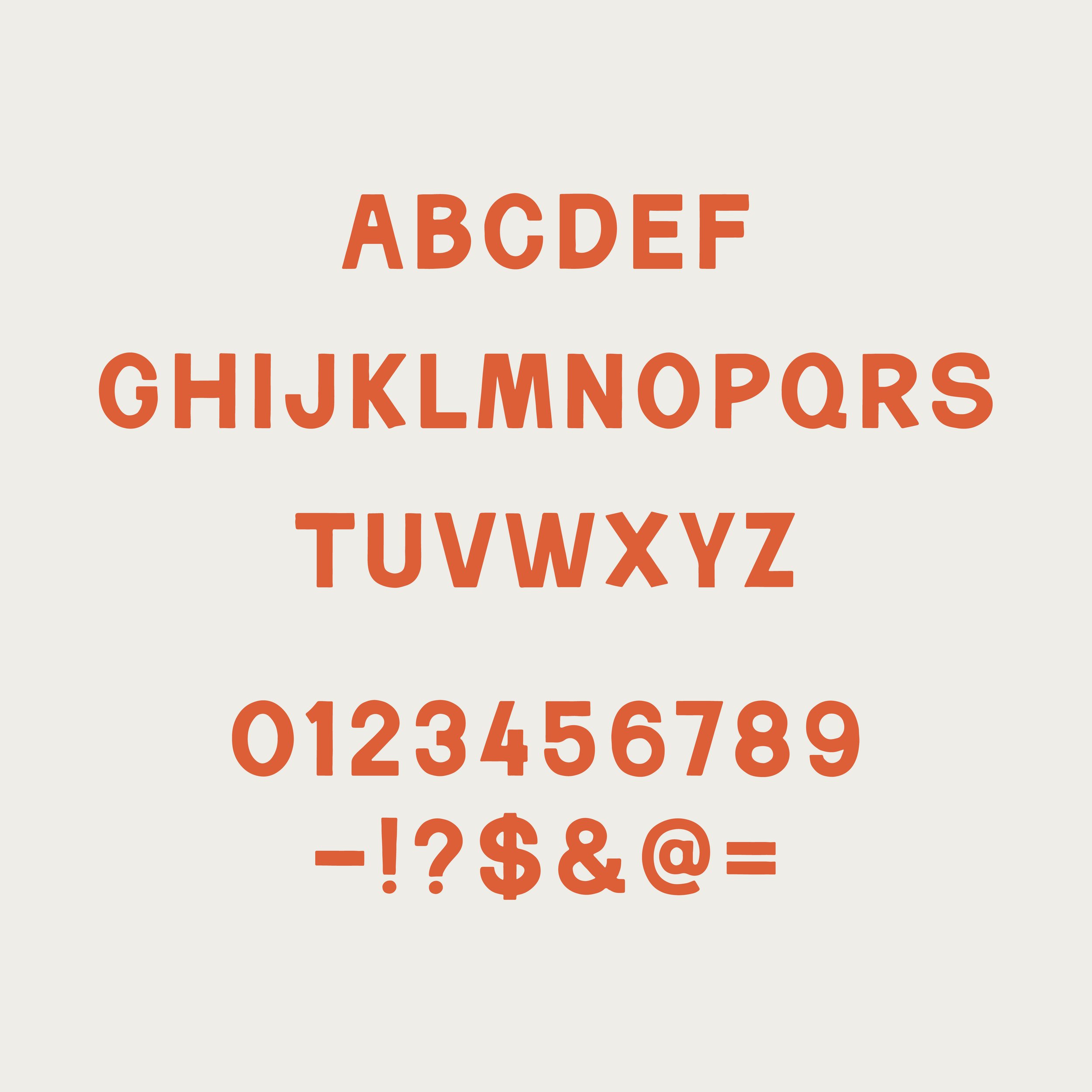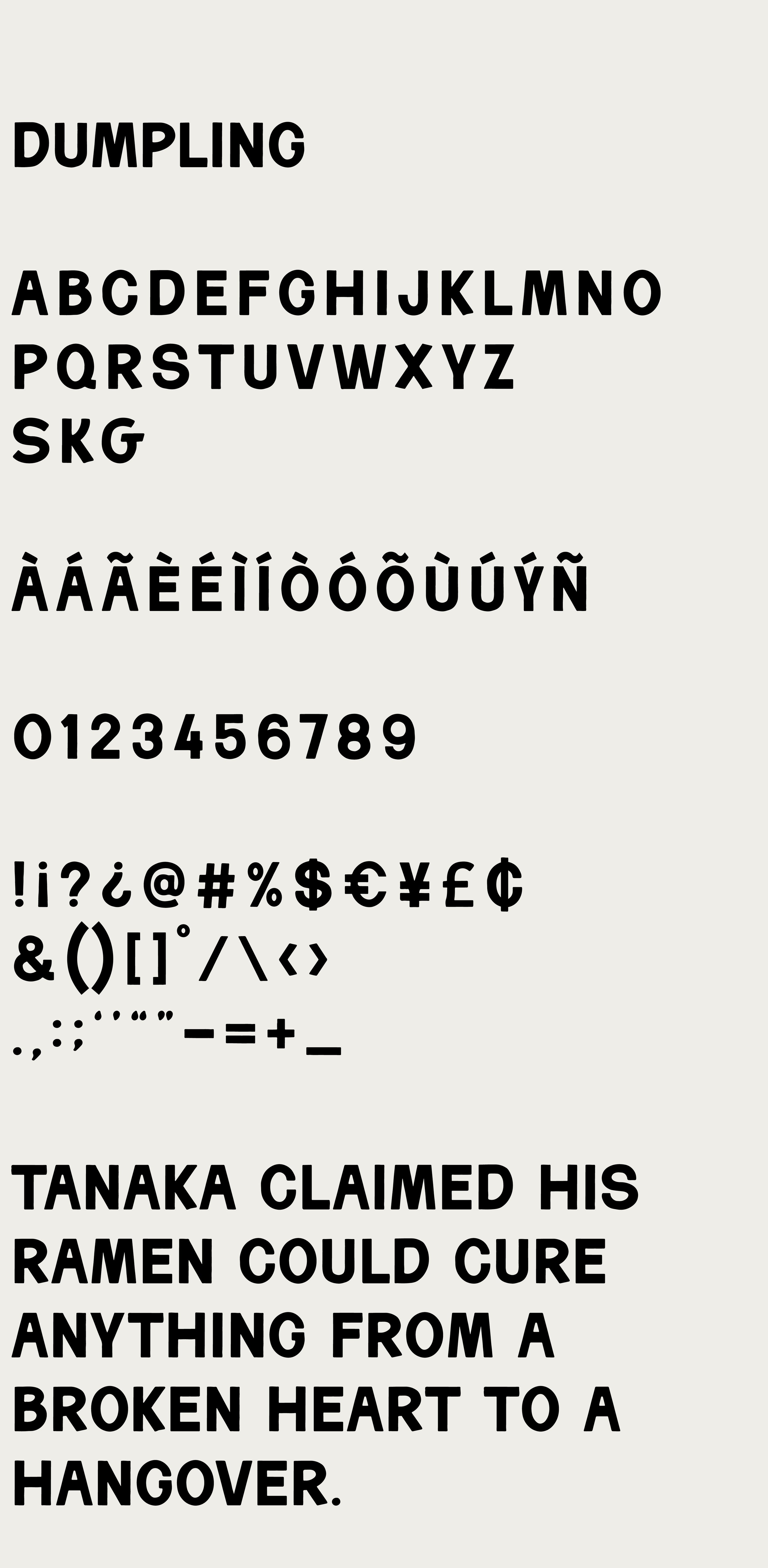
Dumpling
I might be underselling it, but Dumpling is about as solid as it gets.
It’s bold, smooth, and weirdly versatile. Even if your design ends up a little questionable, these letterforms are strong enough to hold the line. Use it well — or at least make me proud.
Basic Latin support with a limited set of accented characters. Please see the character sheet below for the full glyph list.